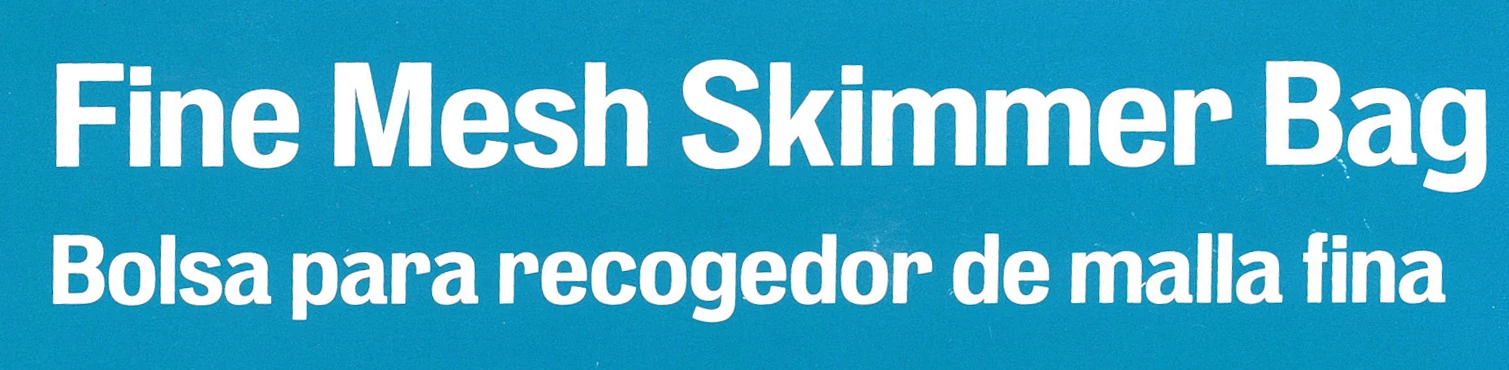
Could anyone tell me what font is used in the image?
I tried to match it on several font markets to find it but without success. It looks similar to the Myriad family, but the "t" and numbers are quite different.
It looks like the Stilu typeface, semi-bold weight. The Font Squirrel site has a free version of it.